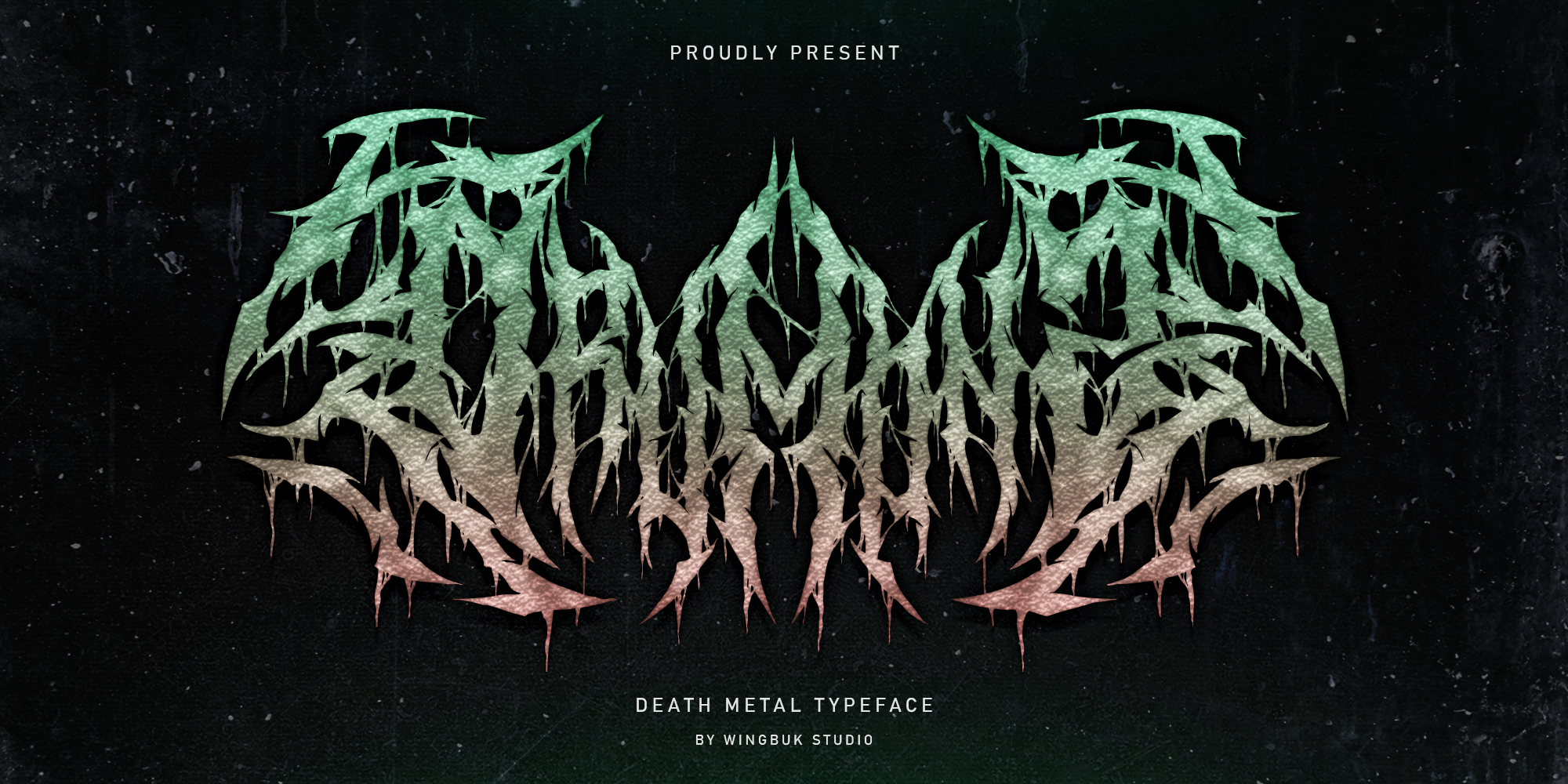
Drumonz Metal Font is perfect for heavy metal band logos, rock concert posters, music album covers, gothic branding projects, motorcycle club signage, tattoo parlor designs, extreme sports merchandise, dark themed video games, industrial product packaging, and rebellious fashion brands that require aggressive typography with metallic edge and underground attitude.
What makes Drumonz Metal Font so exciting is its powerful fusion of industrial strength with dark musical energy that captures the raw intensity of heavy metal culture. This font features sharp, angular letterforms with metallic textures and aggressive styling that evoke the thunderous power of drums and the rebellious spirit of metal music. The carefully crafted character designs incorporate jagged edges and bold strokes that create an unmistakable presence, perfect for brands that need to project strength, rebellion, and underground authenticity.
The Drumonz Metal Font family includes multiple weights and styles: Regular, Bold, Black, Condensed, Extended, and distressed variants with optional metallic effects. Each weight maintains the signature aggressive metal character while offering comprehensive flexibility for hardcore design applications and rebellious typographic statements.
Metal designers consistently choose Drumonz Metal Font Free Download for projects requiring authentic underground typography that embodies the spirit of heavy metal and industrial culture. Whether you're creating band merchandise, developing extreme sports branding, designing concert promotional materials, or crafting rebellious fashion campaigns, this font delivers exceptional edge and cultural authenticity. The font's comprehensive character set includes alternative glyphs and metallic styling options while ensuring optimal impact across both digital and print metal applications, making it an indispensable tool for designers working on hardcore projects that demand aggressive, powerful, and authentically rebellious typography solutions with uncompromising metal attitude.